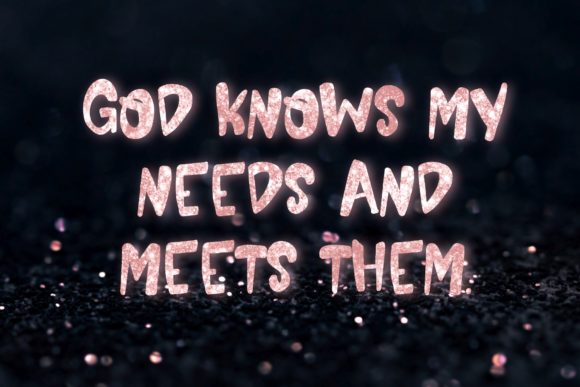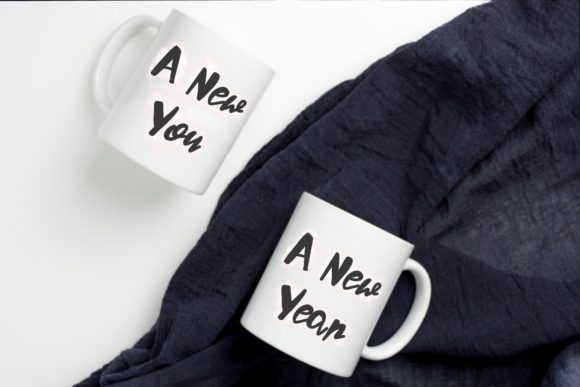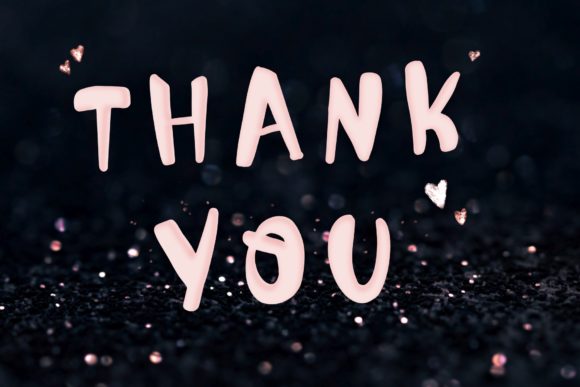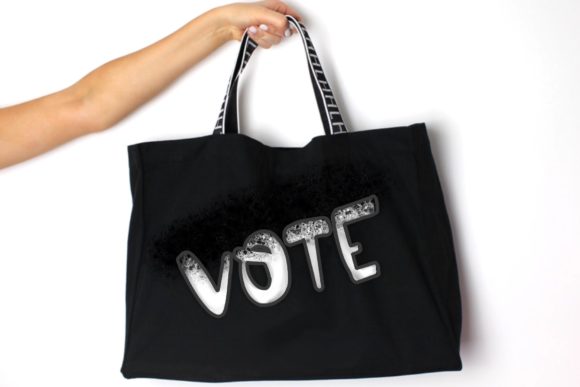
Desire Font: The Modern and Bubbly Display Font You Need
Are you tired of using the same old fonts for your designs? Look no further than the Desire Font! This modern and bubbly display font is perfect for a wide range of contexts, from crafting and DIY projects to digital designs and marketing materials. In this article, we’ll take a closer look at the Desire Font, its features, and why it’s becoming a top choice among designers and crafters.
What is Desire Font?
Desire Font is a modern and playful display font that is designed to add a touch of fun and personality to your designs. Its bubbly and energetic vibe makes it perfect for projects that require a youthful and vibrant feel. The font features rounded edges, soft curves, and a carefree spirit that will make your designs stand out from the crowd.
Key Features of Desire Font
So, what makes Desire Font so special? Here are some of its key features:
- Modern and playful design: Desire Font has a fresh and contemporary look that will add a touch of sophistication to your designs.
- Bubbly and energetic vibe: The font’s rounded edges and soft curves give it a fun and carefree spirit that’s perfect for projects that require a youthful feel.
- Highly versatile: Desire Font can be used for a wide range of contexts, from crafting and DIY projects to digital designs and marketing materials.
- Easy to read: Despite its playful design, Desire Font is highly legible and easy to read, making it perfect for headlines, titles, and short paragraphs of text.
Why Choose Desire Font?
So, why should you choose Desire Font for your next project? Here are just a few reasons:
- Unique and eye-catching: Desire Font is a unique and eye-catching font that will make your designs stand out from the crowd.
How to Use Desire Font
Using Desire Font is easy! Here are a few tips to get you started:
- Pair it with other fonts: Desire Font pairs well with other fonts, so feel free to experiment with different combinations to find the perfect look for your project.
- Use it for headlines and titles: Desire Font is perfect for headlines and titles, where its bold and playful design can really shine.
- Experiment with colors: Desire Font looks great in a variety of colors, so don’t be afraid to experiment and find the perfect hue for your project.
In conclusion, Desire Font is a modern and bubbly display font that is perfect for designers and crafters looking to add a touch of fun and personality to their designs. Its unique and eye-catching design, versatility, and ease of use make it a top choice among designers and crafters. Whether you’re working on a crafting or DIY project, or a digital design or marketing material, Desire Font is sure to become your top choice in no time!